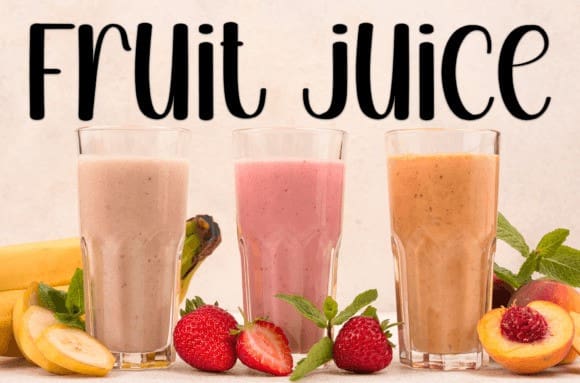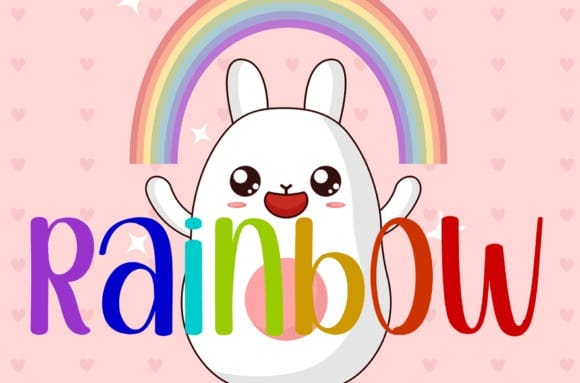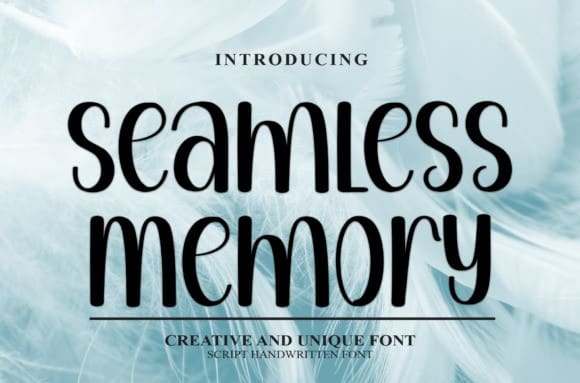
Seamless Memory Font
Seamless Memory Font is a sweet and friendly handwritten font. Cute and creative, this font is ideal for writing wedding invitations, cards, or any other design that might need a fun touch!